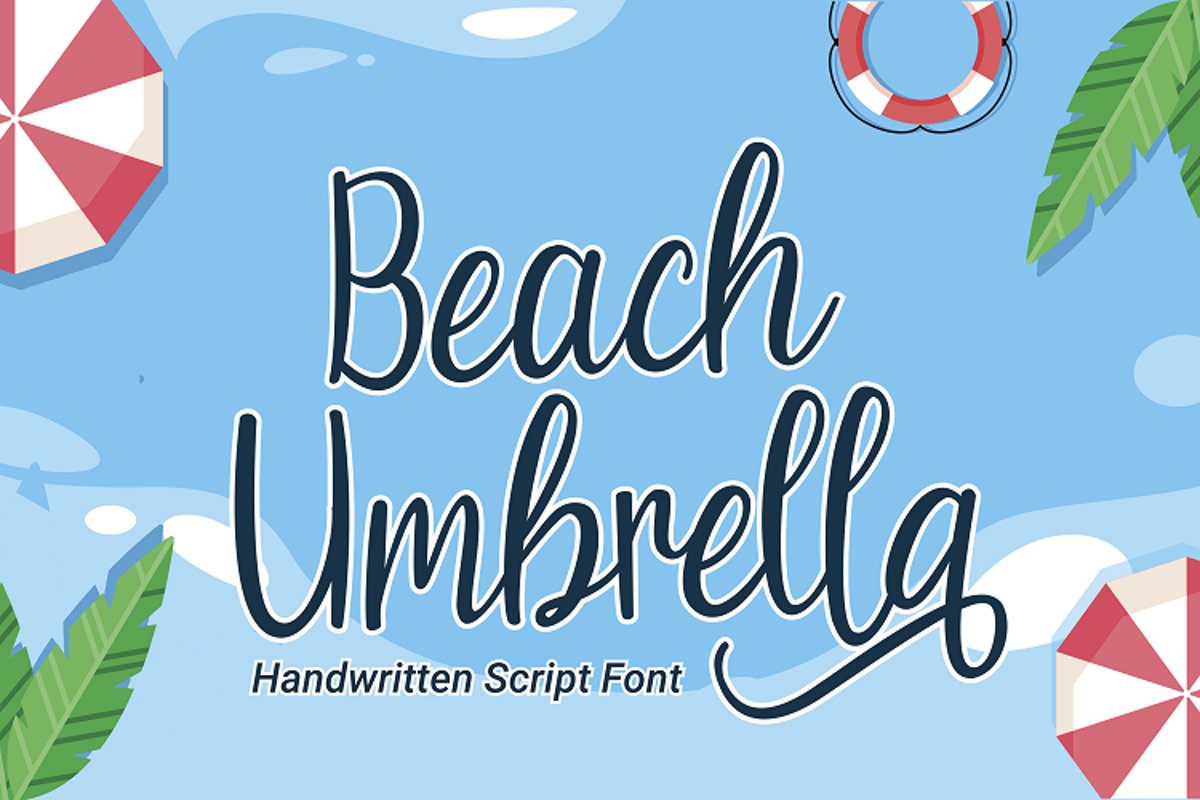
Beach Umbrella - Handwritten Script Font
Beach Umbrella is Handwritten Script font. It has a elegant, and modern look which can be used for logos, branding, invitations, stationary, wedding designs, social media posts, and every other design.